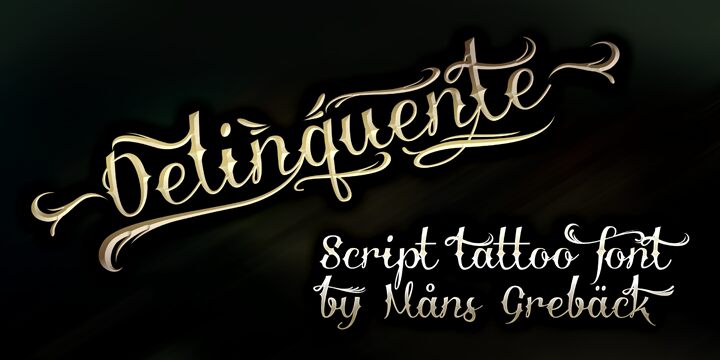
Delinquente by Måns Grebäck is a free calligraphic script with theatrical scale and pronounced thick-thin contrast. Its tall, dark downstrokes are threaded with hairline loops, and many letters finish in long, curling flourishes. Sharp inward notches give the otherwise fluid forms an ornate, slightly dramatic edge.
Fashion, beauty, and upscale hospitality designers can use it for brand identities and packaging with a lavish decorative voice. It also brings ceremony to invitations and event posters, especially when the lettering can function as part of the decoration. The strongest audience is one drawn to elaborate, romantic lettering rather than restrained modern script.
Use 0–9 for swashes.